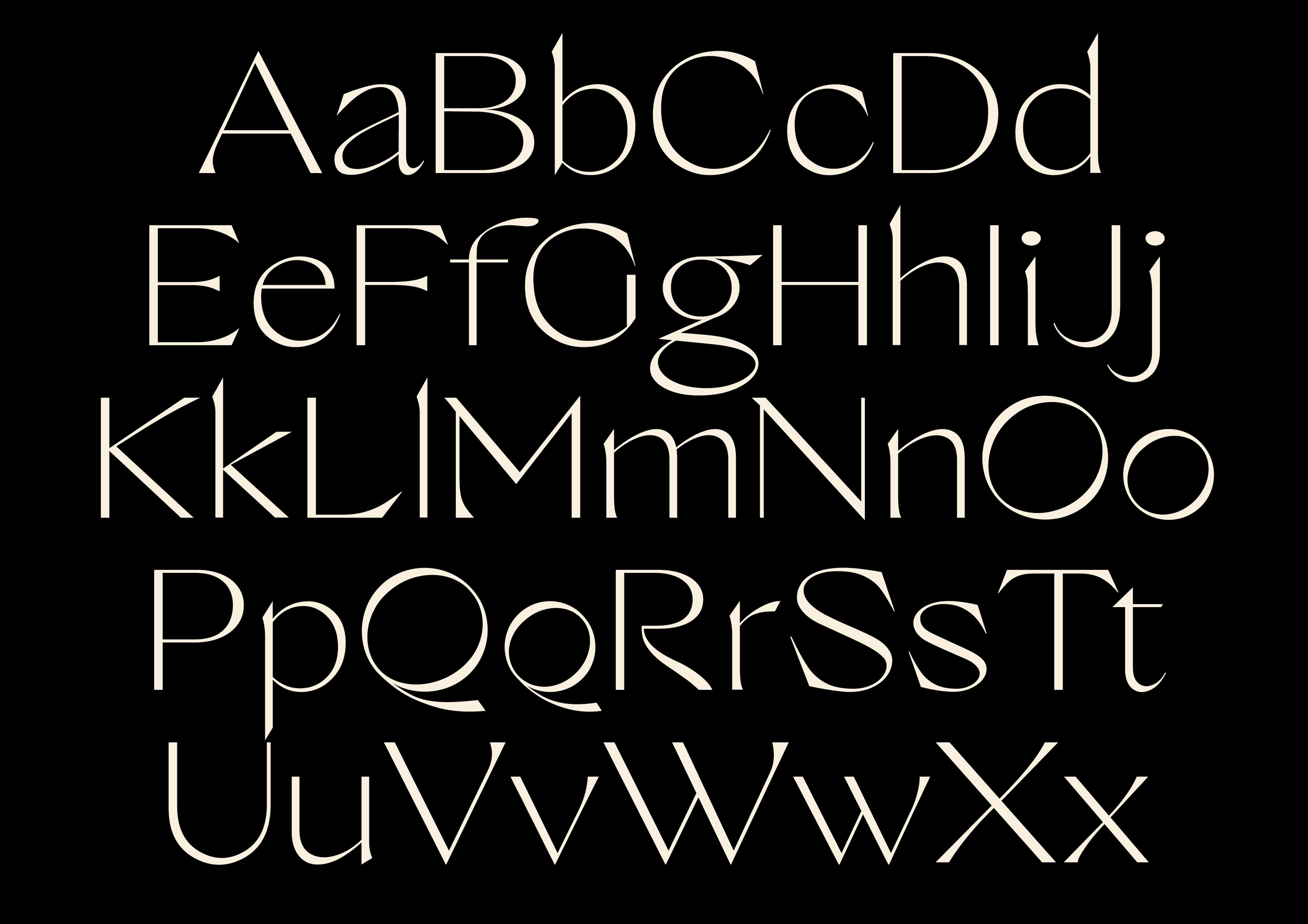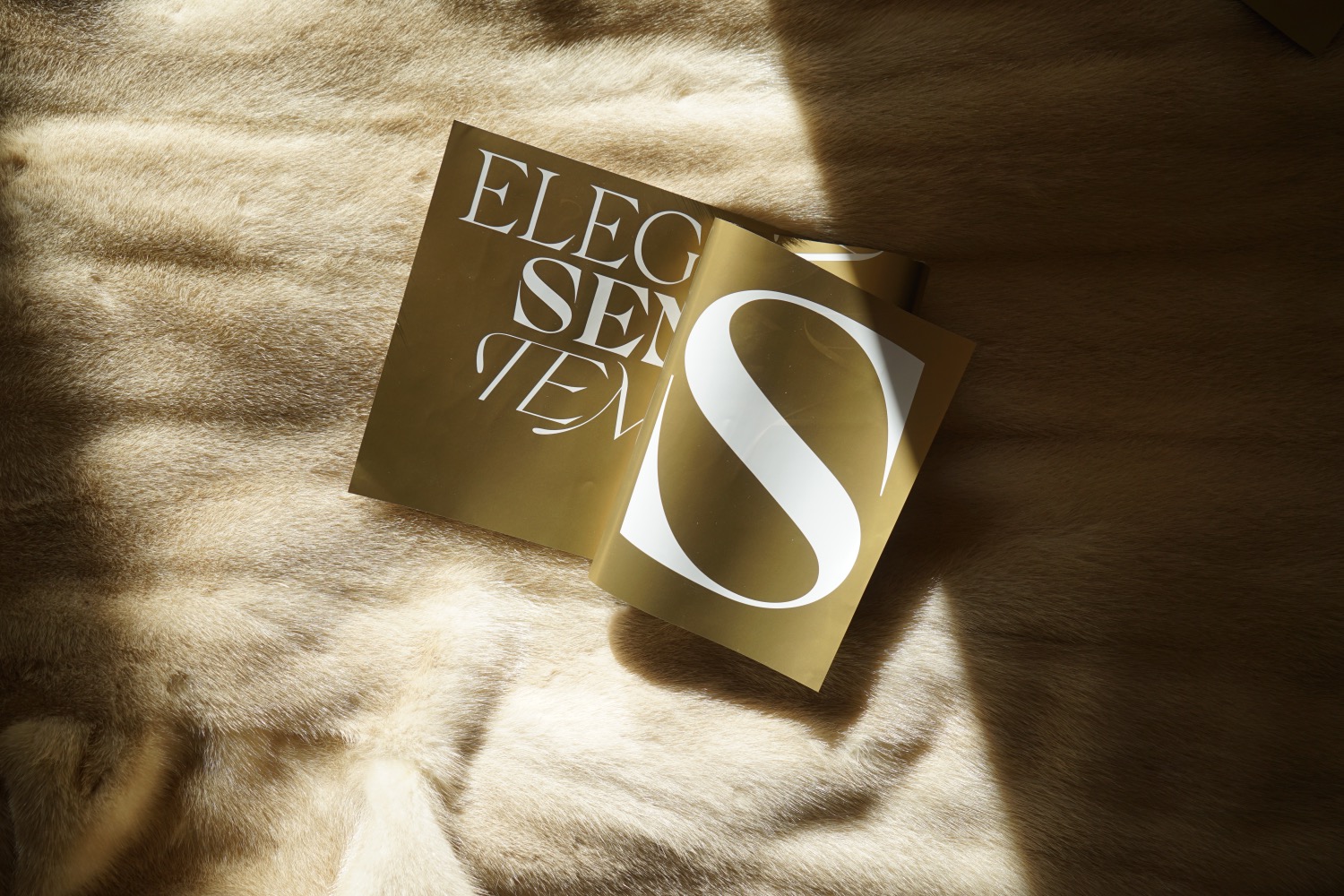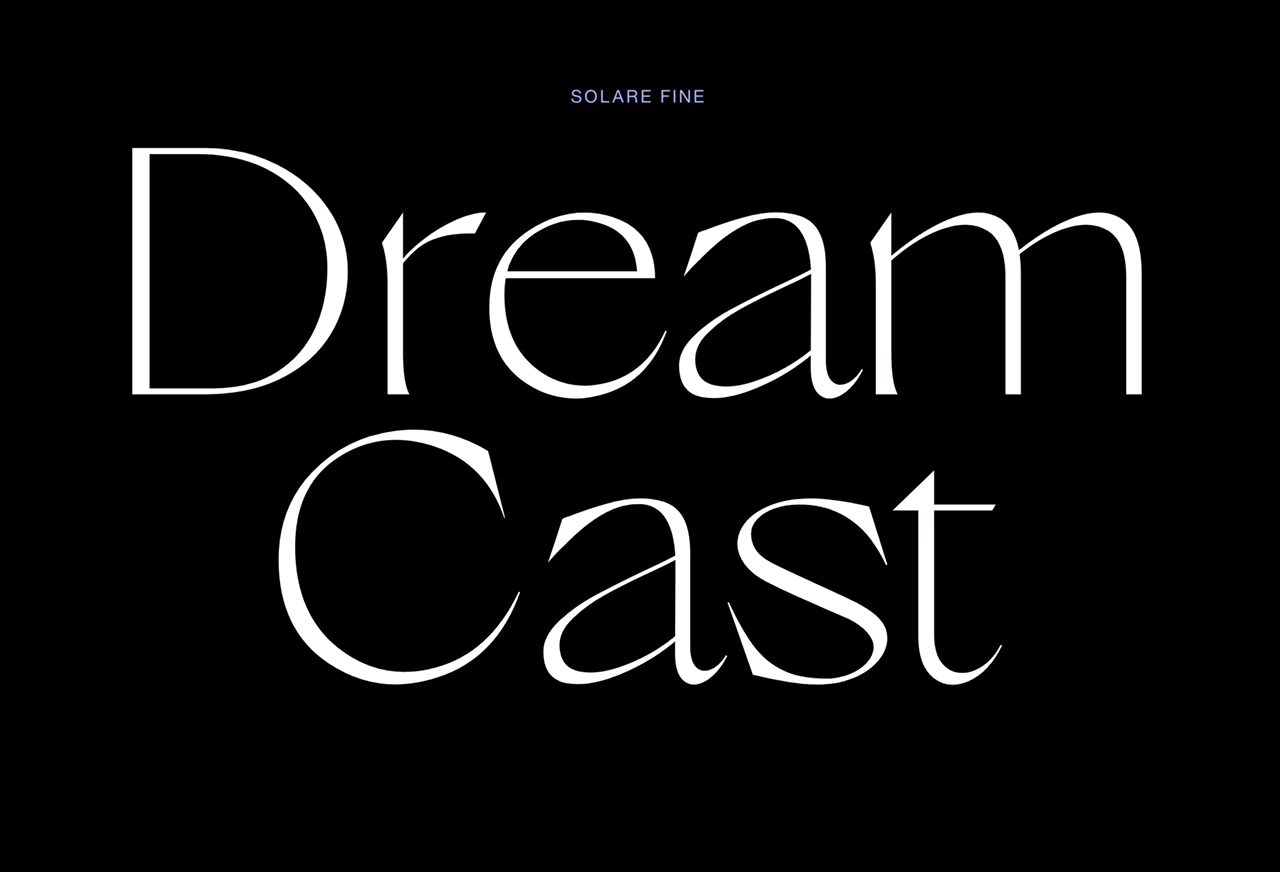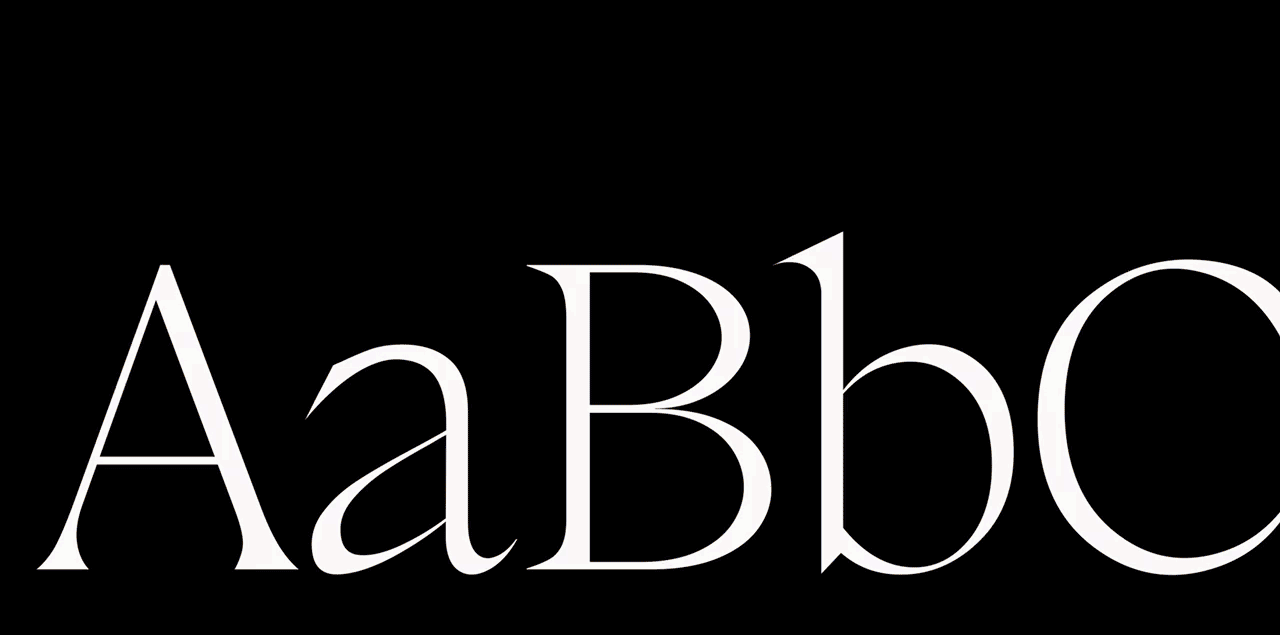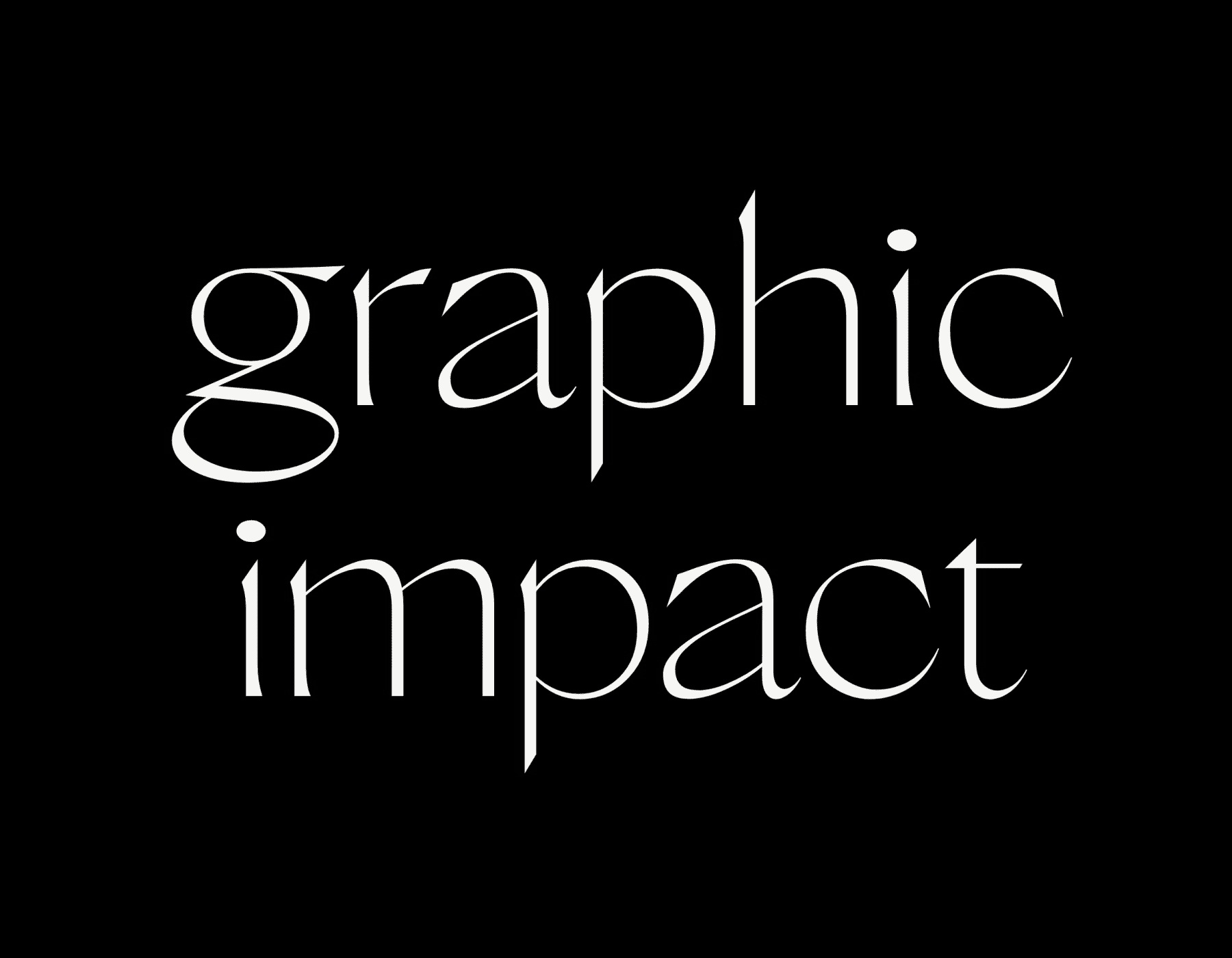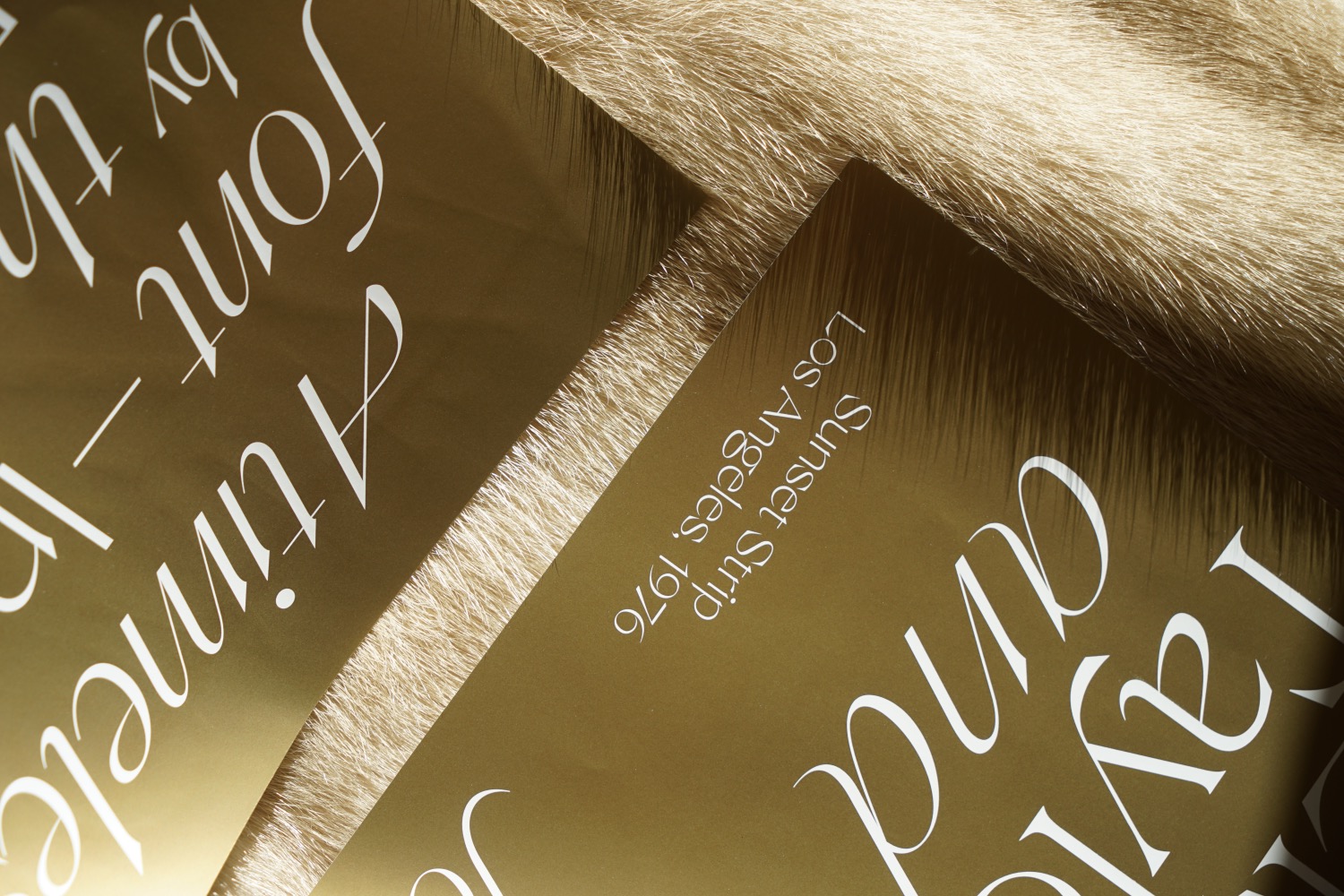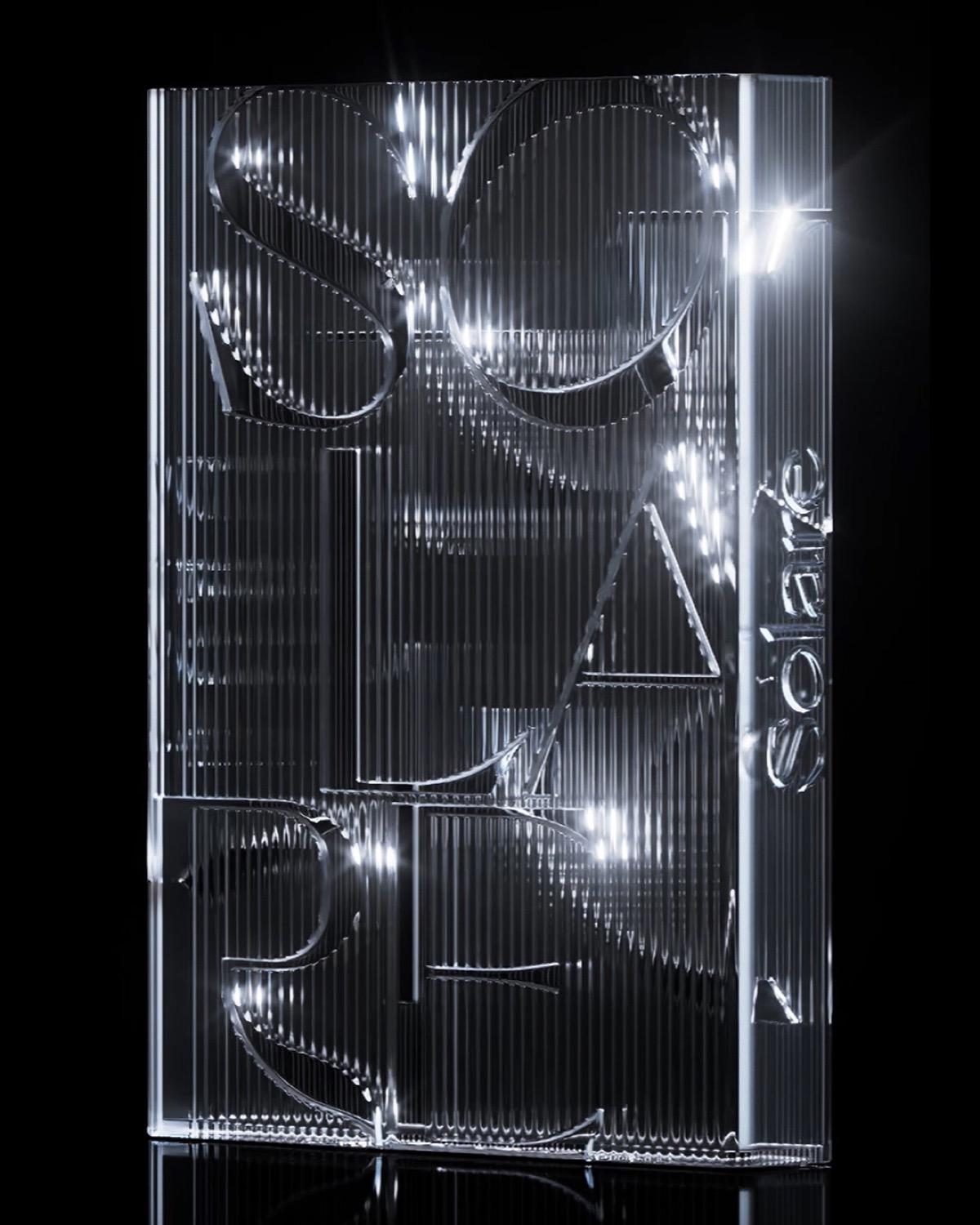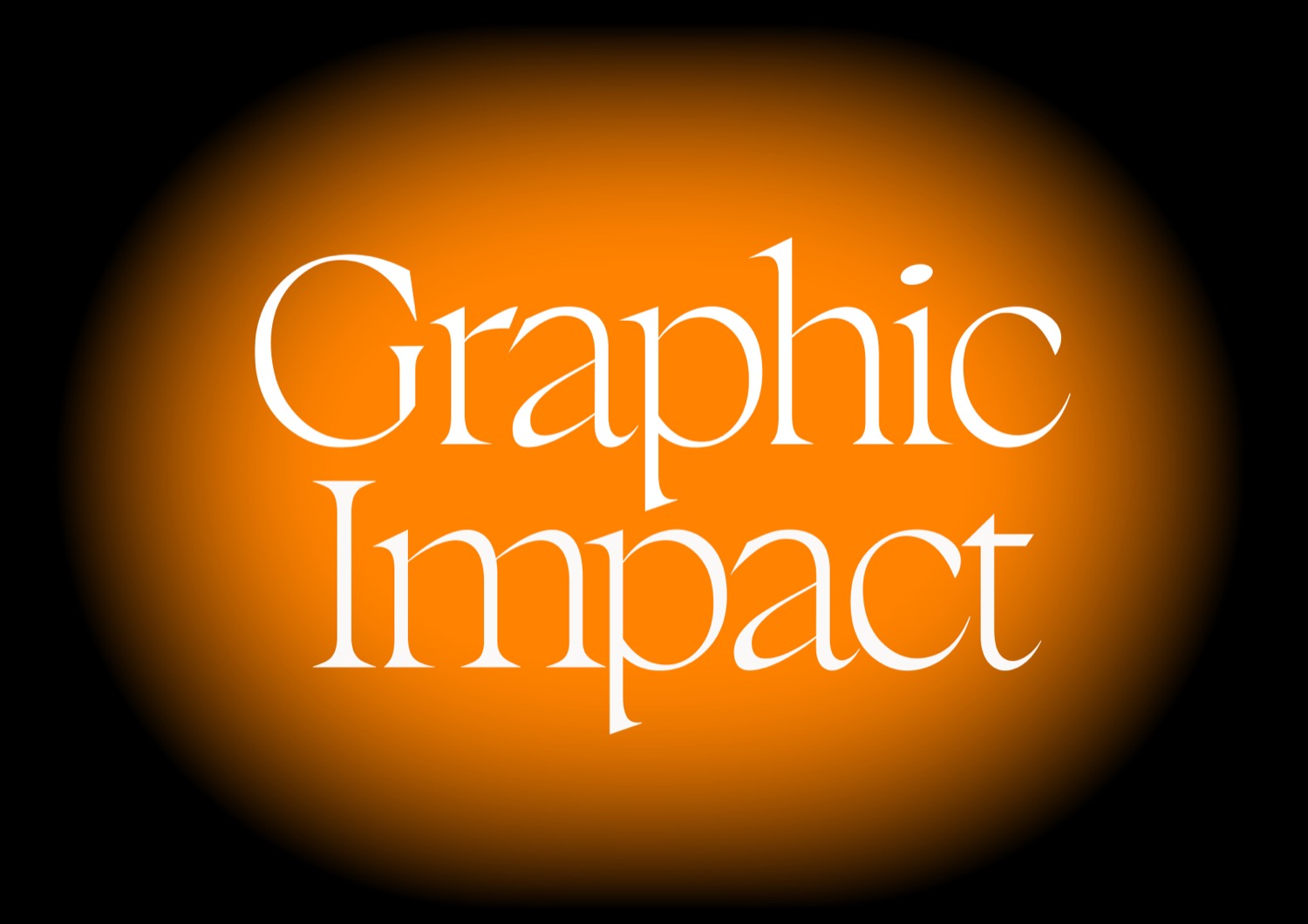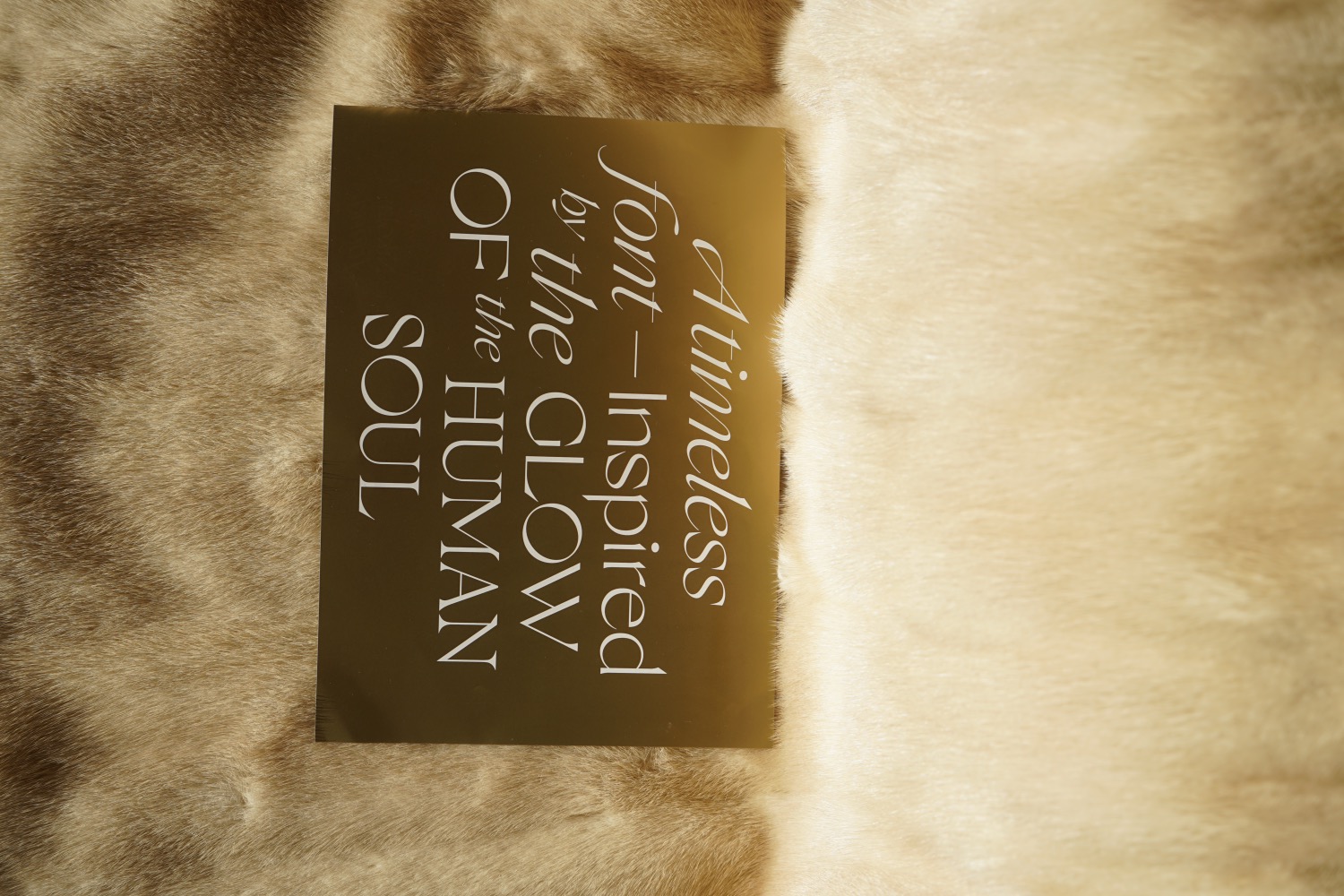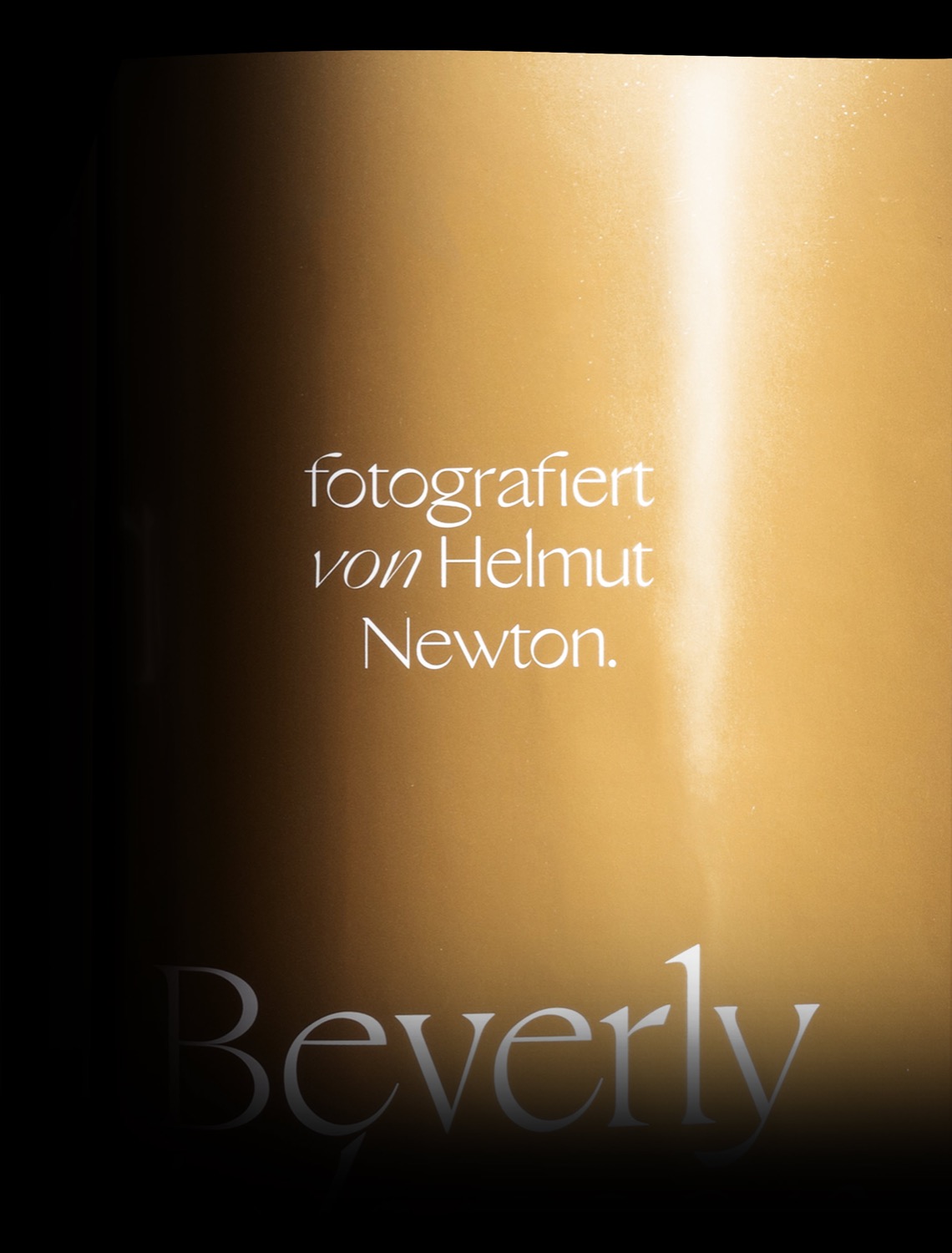
Solare is the new versatile variable font from the Nikolas Type Foundry.
Five years in the making, Solare incorporates all the expertise, love and dedication of Designer Nikolas Wrobel and Team. Solare is about the beauty of human nature and experience of emotions: I wanted to transcend facets of this complex matter through expressive shapes, reduce them to an essence, making them abstract, tangible and useful for the vision of others. With Solare, we wanted to release a meaningful, modern essential beyond display, but with exactly it's radiance.
Meticulously blending tradition and nowness, sans and serif in an enchanting and effortless manner, Solare flourished into a hyper usable, spiritually energized font, suitable for wide fields of applications, aspiring to create an irresistible typographic glow.
With signature font styles from fine to black, matching Italics and an alluring, glamorous intense style, entrancing alternates, and an upright Japanese support, Solare is the foundries grandest production yet. The Pinnacle marks the Collection: Owners will enjoy the full Solare experience, lavishly equipped with the variable fonts for seamless shifts and playful animations between all styles and weights, while being pampered by the dreamy, collection exclusive Solare Sunset.